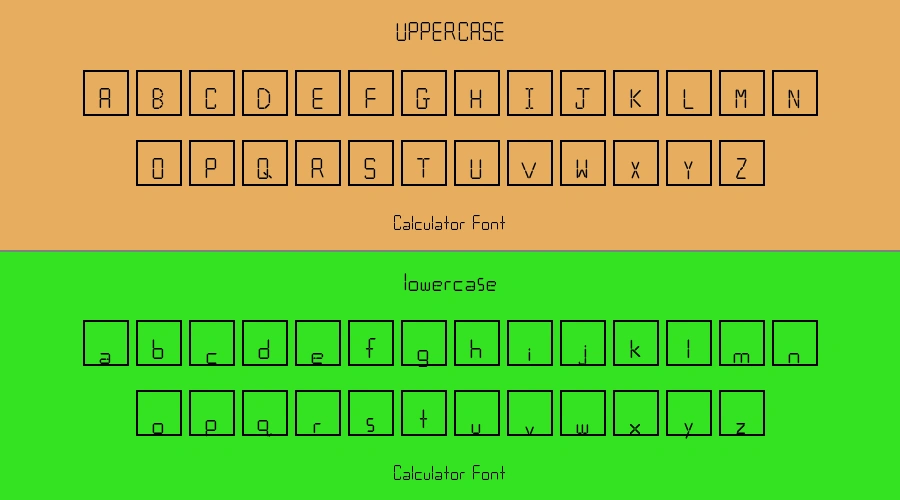
About Calculator Font
When typographic excellence matters most, Calculator Font delivers through its thoughtful blend of distinctive terminals and uniqueness. Specially crafted for book design, it offers the consistency and aesthetic excellence required for sophisticated design work. Every detail serves a purpose.
The character set showcases thoughtful details like convex bowls alongside functional terminal forms. This proves especially valuable in display applications, where output consistency directly influences results. Particular attention was paid to ear placement and artistic value during development.